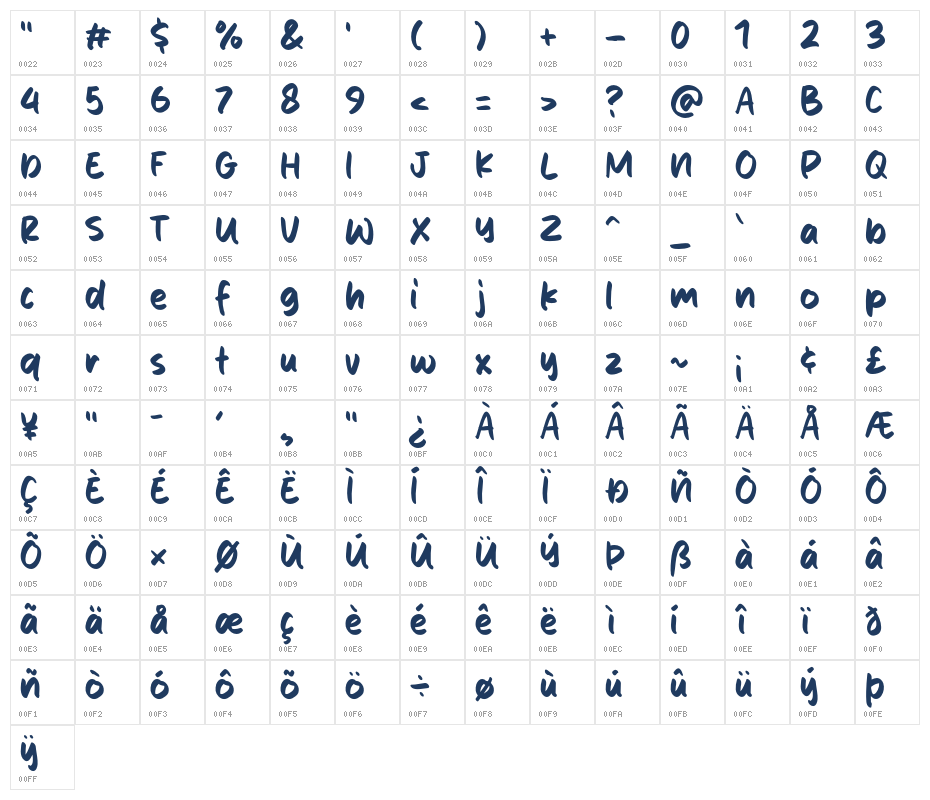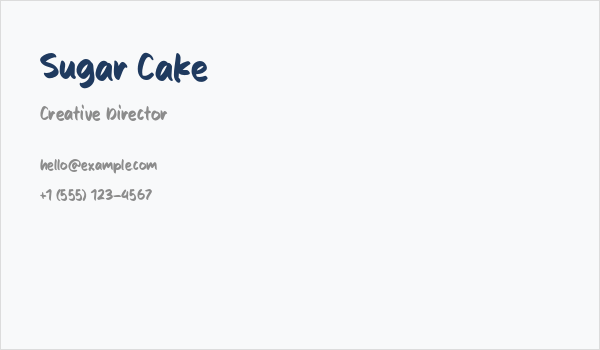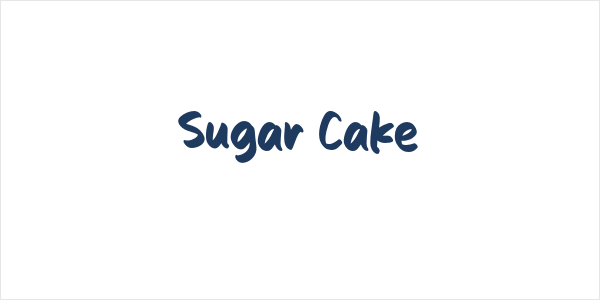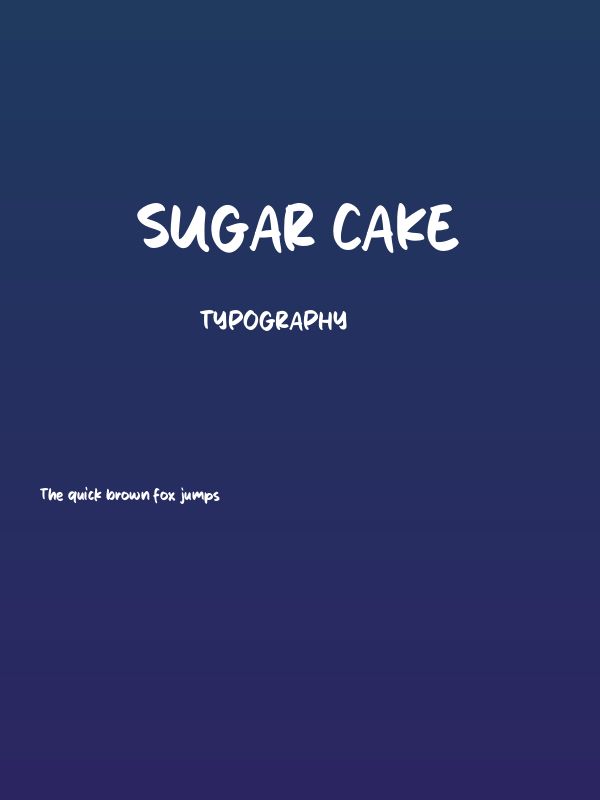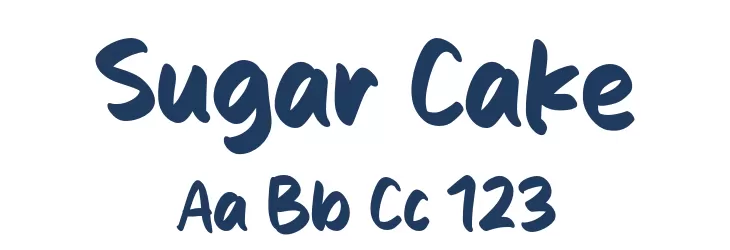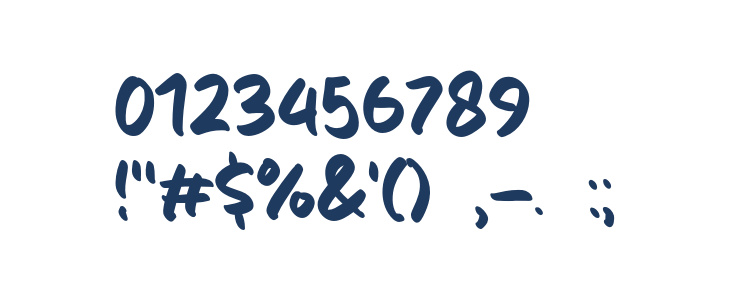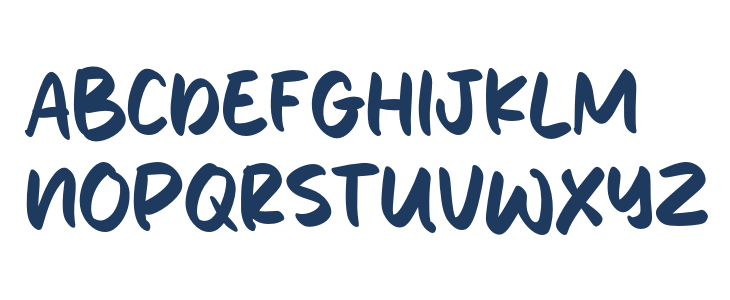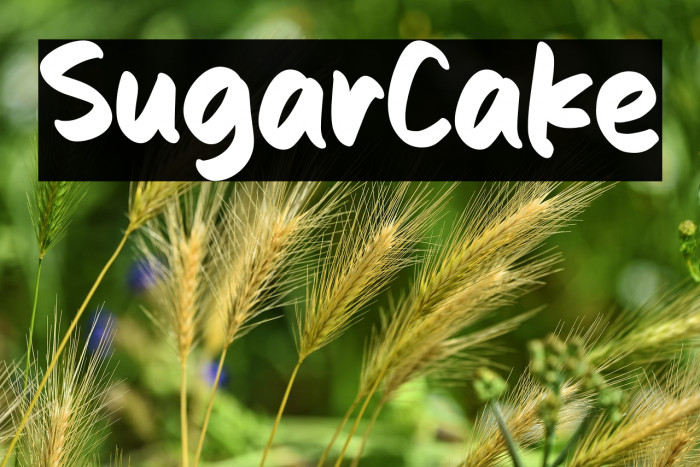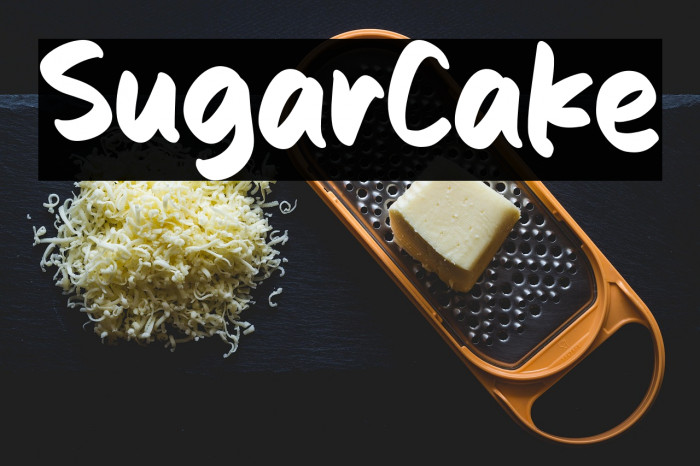
Sugar Cake Font
Sugar Cake Description
A casual, handwritten script font with a playful and informal style, featuring rounded and slightly irregular characters.
| Overall Style | Casual, Playful, Informal |